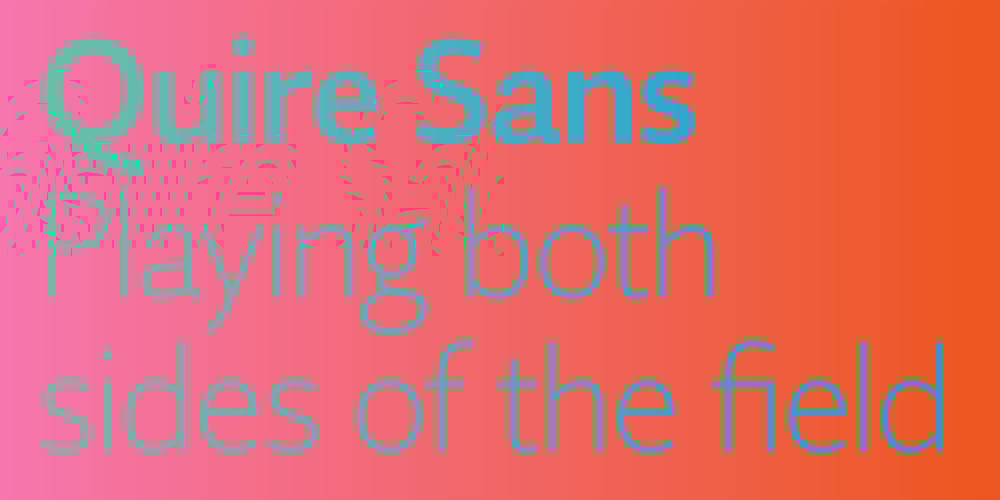
Quire Sans Font Family was designed by Jim Ford and published by Monotype. Quire Sans contains 20 styles and family package options. “My goal was to make a design that might fit in anywhere,” says Jim Ford about his Quire Sans™ typeface. “I wanted it to be highly functional and sexy at the same time.” With one foot comfortably in the realm of oldstyle design and traditional book typography, and the other in evolving electronic media, the Quire Sans family does, indeed, fit in just about anywhere. As for sexy, someone once quotably wrote, “A great figure or physique is nice, but it’s self-confidence that makes someone really sexy.” Yes, Quire Sans is sexy, performing confidently in virtually any setting.